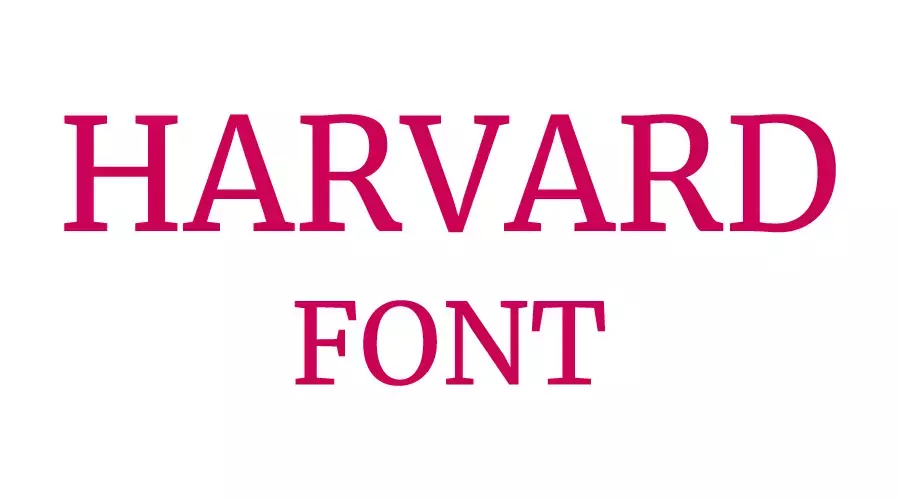
Harvard font is not a specific font, but rather a term that refers to the fonts used by Harvard University for its branding and publications. According to the official guidelines of Harvard T.H. Chan School of Public Health and Harvard Business School, the two primary typefaces for Harvard are Proxima Nova and Merriweather.
Characteristics of Proxima Nova and Merriweather
Proxima Nova is a sans-serif font that combines geometric shapes with warm details. It has a wide range of weights and styles, making it suitable for headlines, subheads, captions, and body text. It has maximum readability and flexibility on screen and in print.
Merriweather is a serif font that features large counters, wide proportions, and generous spacing. It has a classic look with modern curves and details. It is designed to be easy to read on screens as well as on paper.
Where to Use Proxima Nova and Merriweather
Harvard selects Proxima Nova and Merriweather to create bold contrasts and clear hierarchies in its content. These fonts can be used together or separately depending on the context and purpose. For instance, use Proxima Nova for titles, headings, logos, navigation menus, buttons, labels, charts, graphs, tables, etc. Use Merriweather for paragraphs, quotes, lists, captions, footnotes, references, etc.
Similar Fonts to Proxima Nova and Merriweather
If Proxima Nova and Merriweather are not available or appropriate for some reason, Then you can use some other alternative fonts.
Some similar fonts to Proxima Nova are:
Some similar fonts to Merriweather are:
- Georgia
- Times New Roman
- Palatino
- Lora
- Libre Baskerville
Conclusion